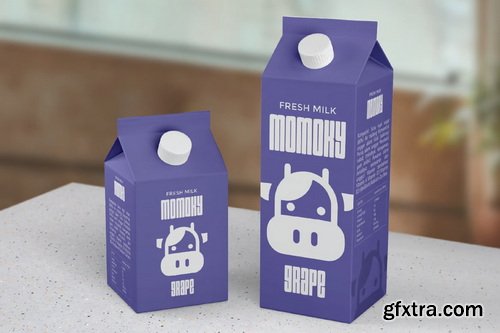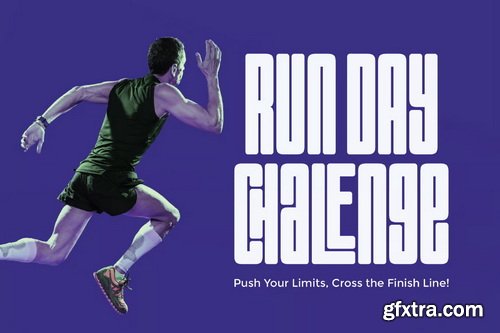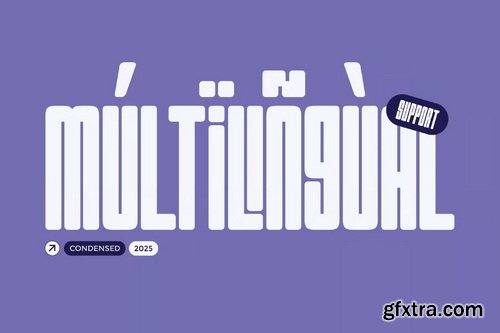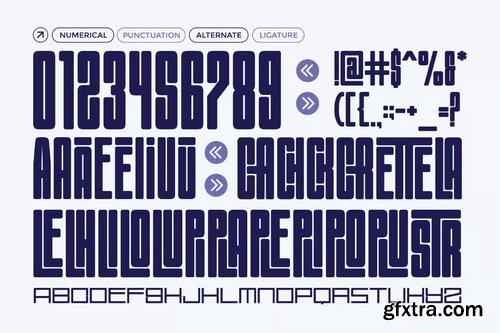
Sunspalre Condensed Modern Sans Serif Font
SunsPalre is a striking condensed sans serif font with a bold, modular design that makes a powerful visual impact. Its tall and tightly spaced letterforms are perfect for creating high-impact titles, logos, posters, and branding that stand out with a futuristic edge. Featuring smooth curves and consistent geometry, Suns Palre is ideal for projects in tech, fashion, music, and editorial spaces that need a modern, experimental, and trend-forward look. Alternate characters and ligatures add extra versatility to your creative typography.